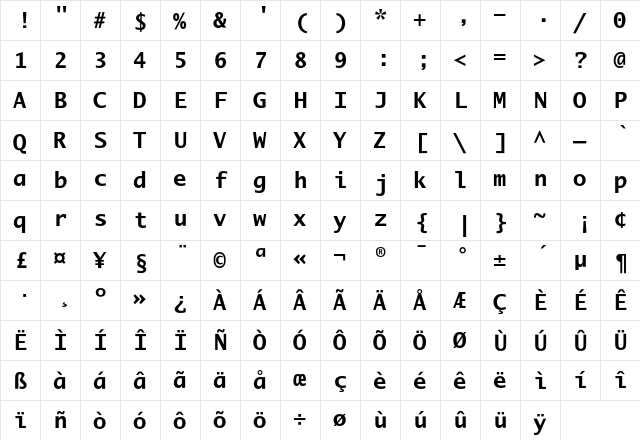
LucidaMonoEF Bold
Design Context for LucidaMonoEF Typeface
LucidaMonoEF brings the precise, column-aligned rhythm of monospaced typography to designs that value technical clarity and systematic order. The heavy weight commands attention and anchors typographic hierarchies.